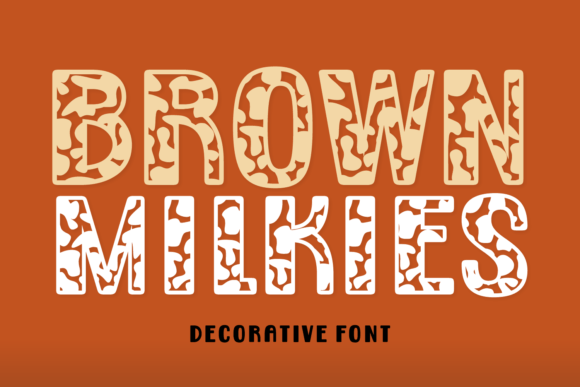
The Quest for the Perfect Font: How Brown Milkies Stole My Heart
I still remember the day I was working on a farm-themed project for a client, and I was on a mission to find the perfect font to bring it all together. I had a vision of a playful, fun, and charming typeface that would capture the whimsy of a dairy farm, but my font library was coming up empty. That was when I stumbled upon Brown Milkies Font, and let me tell you, it was love at first sight! 💕
Brown Milkies Font: A Joyful Typeface for Farm-Themed Projects
Brown Milkies is a fun and playful decorative font with a cow spots motive. This joyful typeface is perfect for farm-themed projects, dairy product designs, and more. With its unique and charming design, Brown Milkies is sure to add some charm to your typography! ✨
What I Love About Brown Milkies Font
• ✨ Unique and playful design with cow spots motive
• ✅ Perfect for farm-themed projects, dairy product designs, and more
• 🎉 Highly legible and easy to read
• 👍 Great for titles, headings, and short paragraphs
While Brown Milkies Font is an amazing typeface, there are a few quirks to keep in mind: 🤔
• ⚠️ Limited character set, may not be suitable for body text
• ⚠️ Some users may find the cow spots motive too playful or childish
The Backstory Behind Brown Milkies Font
Brown Milkies Font was designed by a team of creatives who wanted to capture the playful and charming spirit of a dairy farm. Inspired by the iconic cow spots and rustic charm of rural landscapes, the font was designed to be a fun and versatile typeface that’s perfect for a wide range of design projects.
Q: What is Brown Milkies Font?
A: Brown Milkies Font is a fun and playful decorative font with a cow spots motive, perfect for farm-themed projects, dairy product designs, and more.
Q: Is Brown Milkies Font suitable for body text?
A: No, Brown Milkies Font is not suitable for body text. It’s best used for titles, headings, and short paragraphs.